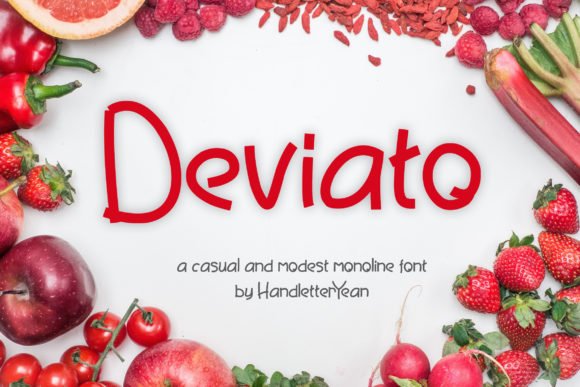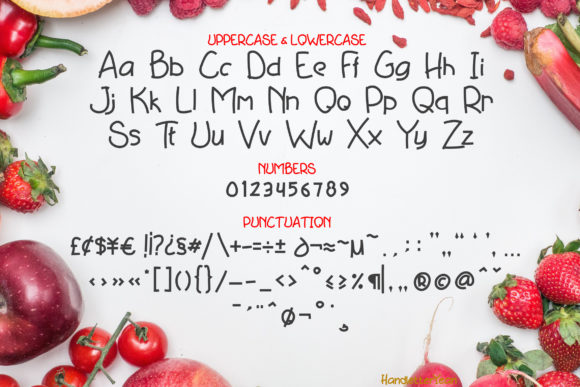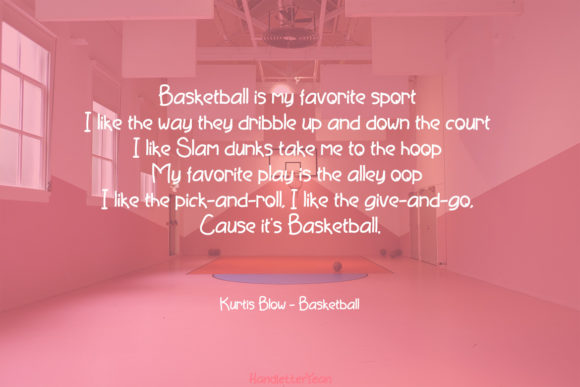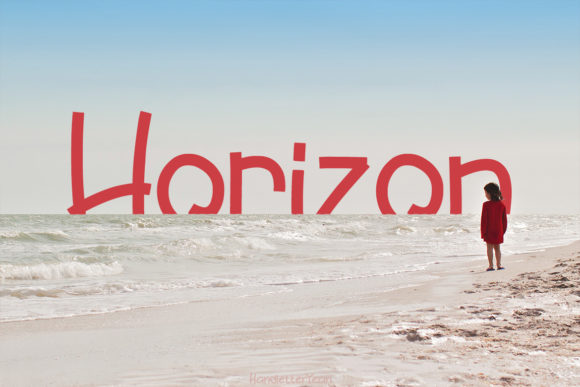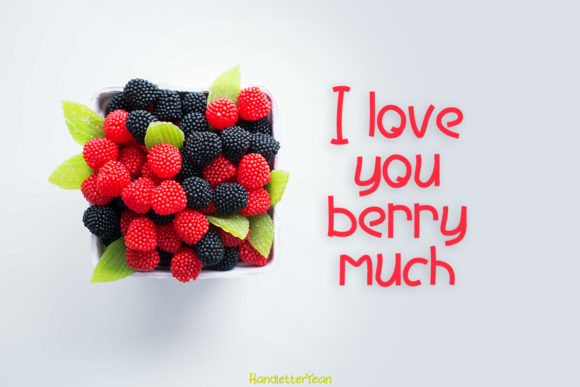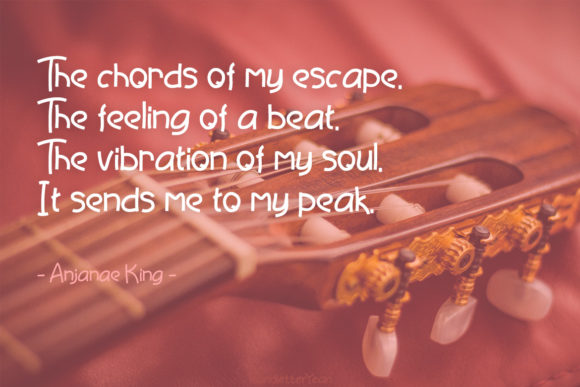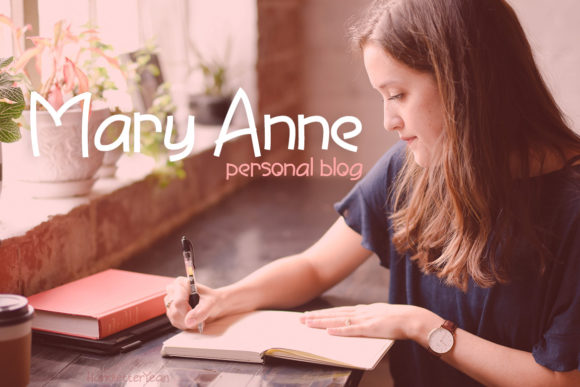
When Simplicity Speaks Volumes
Have you ever found yourself staring at a blank page, waiting for inspiration to strike? Maybe you’re brainstorming ideas for a new project, or perhaps you’re simply seeking the perfect font to elevate your designs. Whatever the case may be, I’m sure you’ll agree that the right font can make all the difference.
Enter the Deviato Font, a unique monoline font designed to bring simplicity and elegance to your creative endeavors. With its clean lines and modest appearance, this font is perfect for logos, personal or company branding, quotes, and more. As a designer, you’ll appreciate the versatility of the Deviato Font, which can be used in a wide range of applications, from greeting cards to stickers and beyond.
Deviato Font Key Features
- Unique Characteristics: Geometric sans-serif design with a modern twist, featuring clean lines, geometric shapes, and subtle curves
Deviato Font Review
I recently had the chance to work with the Deviato Font, and I must say it’s a unique and intriguing typeface. Here’s my honest review:
- ✨ Beautiful, hand-drawn feel that adds a touch of elegance to any design. It’s perfect for branding, advertising, or packaging.
- ✨ The font comes in a variety of weights, from light to bold, which makes it easy to use for different applications.
- ✨ The character set is comprehensive, including all the necessary symbols and accents for most languages.
- ⚠️ The font can be difficult to read at small sizes, which may limit its use for body text or small-scale designs.
- ⚠️ The unique style of the font can be overwhelming if used excessively, so it’s essential to balance it with other typography elements.
- ⚠️ The font may not be suitable for projects that require a more formal or traditional feel.
Deviato Font is a high-quality, visually striking typeface that’s perfect for designers looking to add some personality to their projects. While it has some limitations, it’s definitely worth considering for the right applications. With careful use, it can elevate your designs and make them stand out.
Deviato Font works well for creating eye-catching headings and titles in Canva.
Deviato Font can be used to add a unique touch to your designs in Adobe Photoshop and Illustrator.
Deviato Font works well for creating attention-grabbing headings and titles in PowerPoint and Word.
Deviato Font is ideal for:
- Creativity-focused designs, such as art projects and posters.
- Branding and marketing materials, such as logos and business cards.
- Headings and titles that need to stand out from the rest.
Remember to use Deviato Font in moderation, as it can be quite bold and eye-catching.